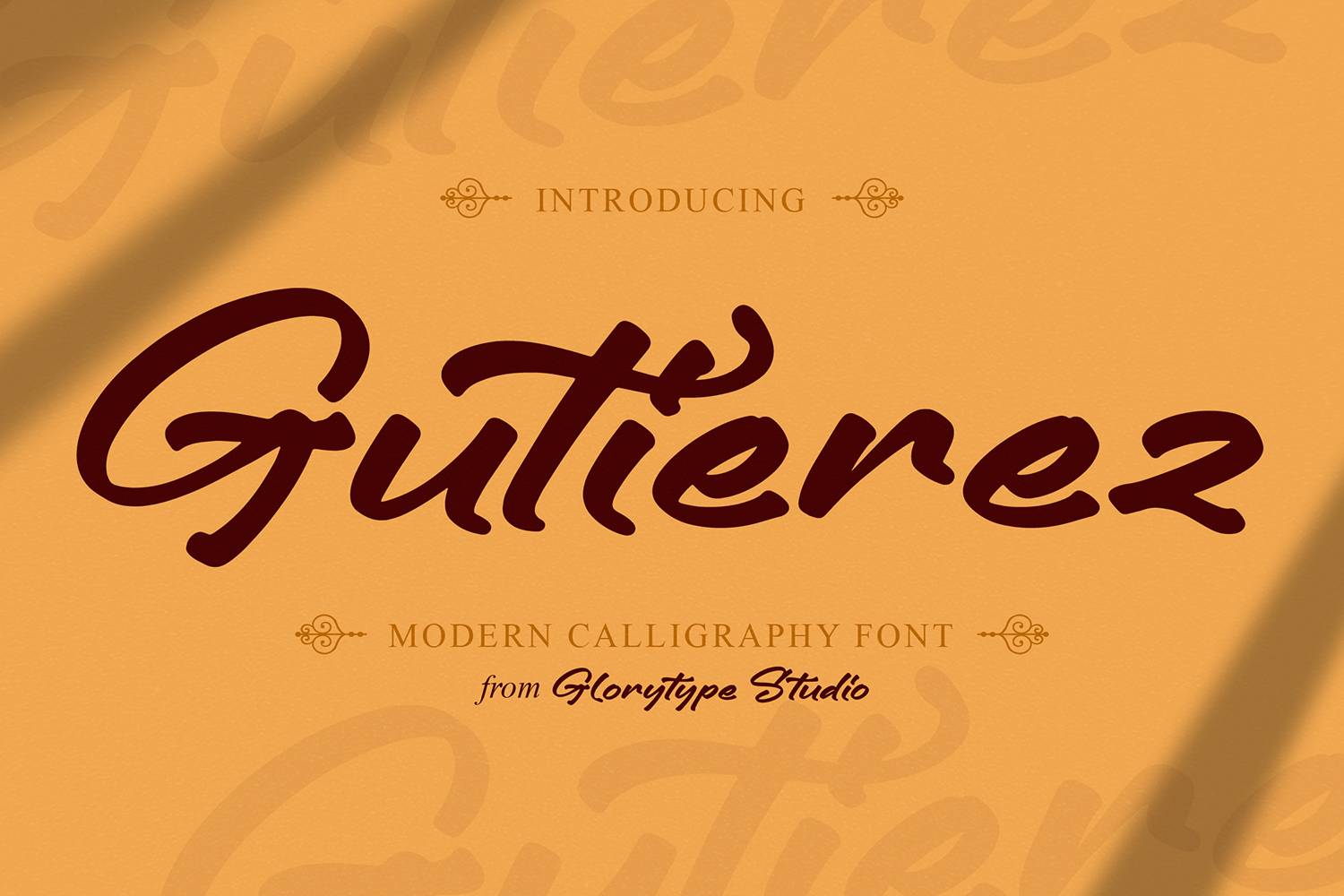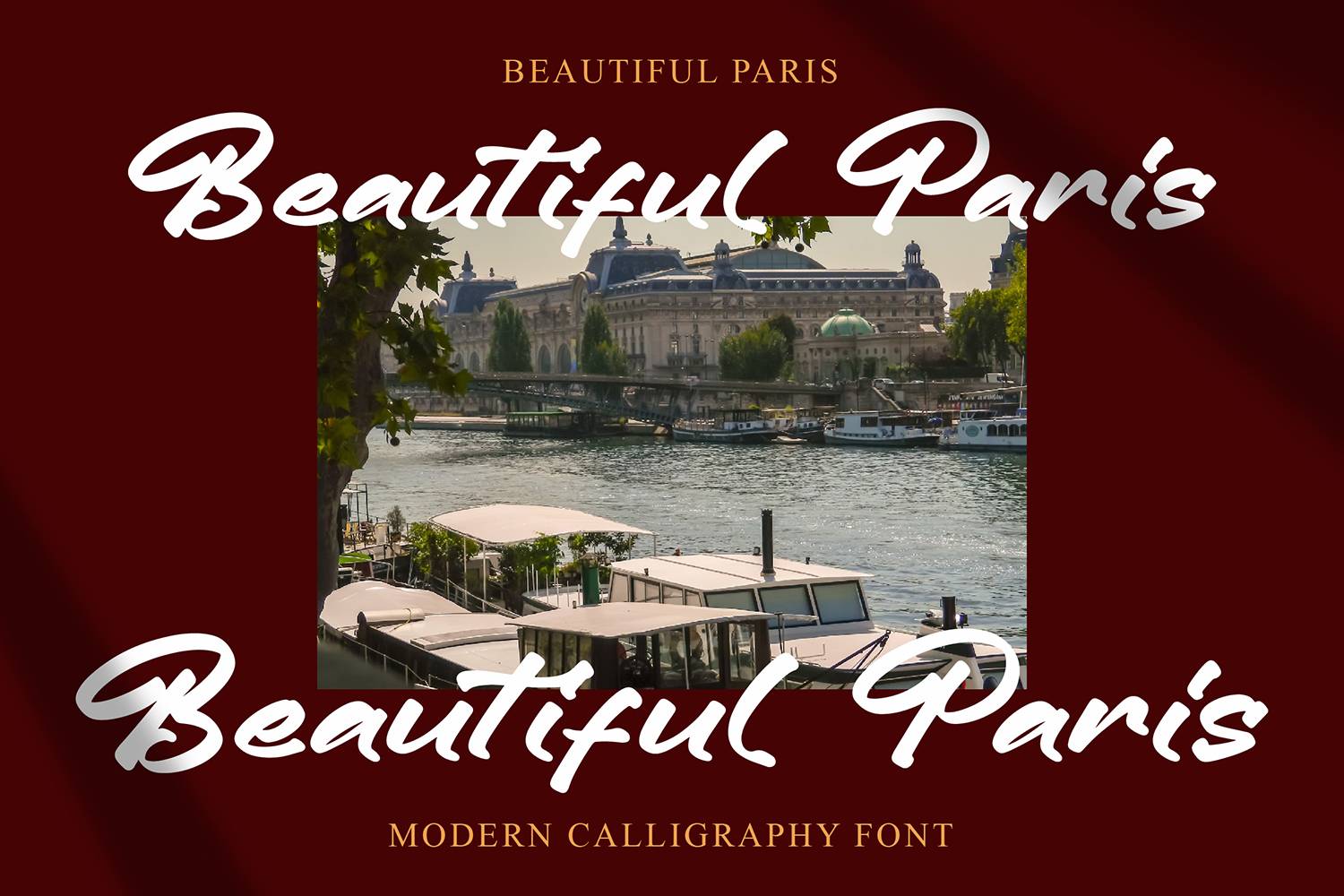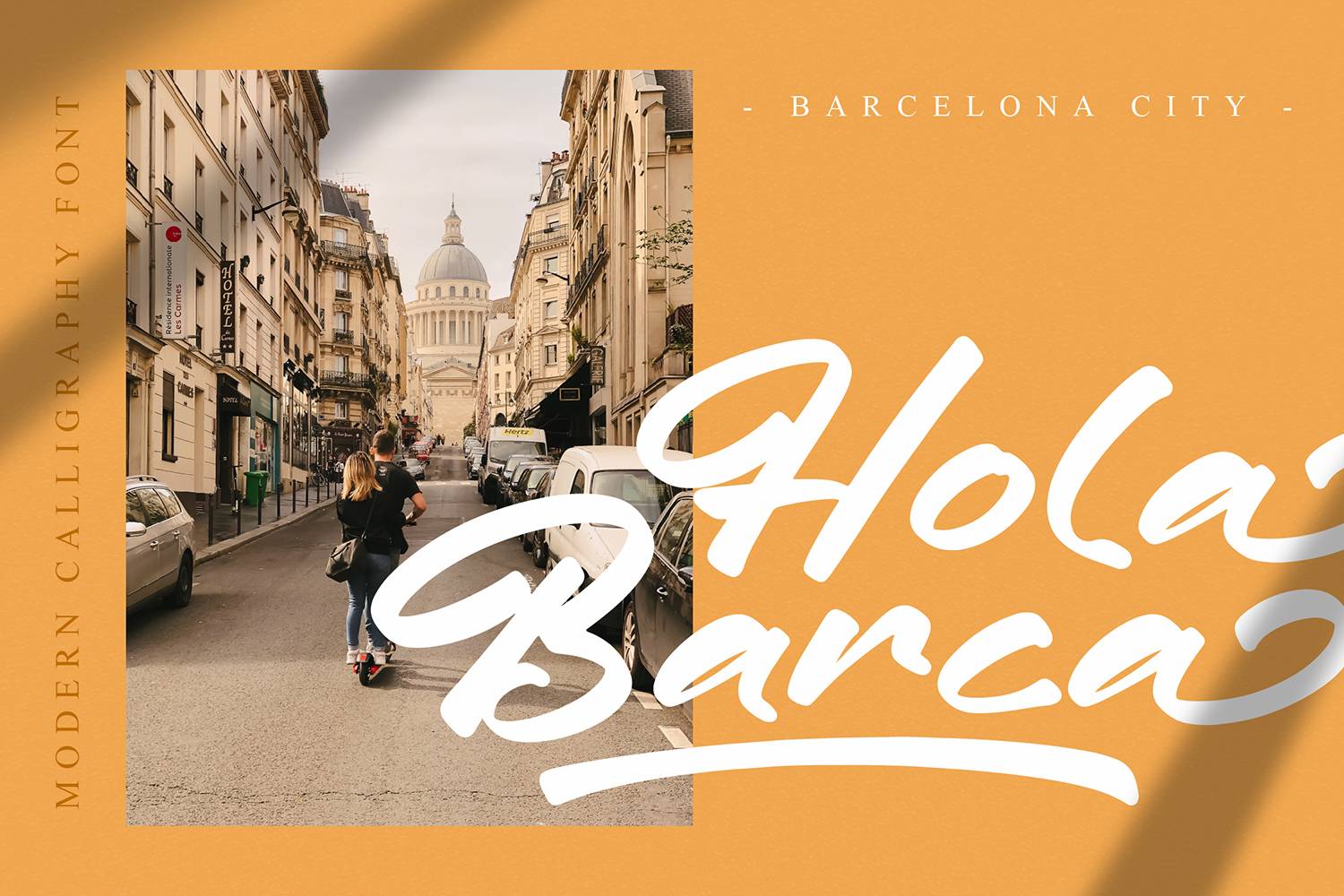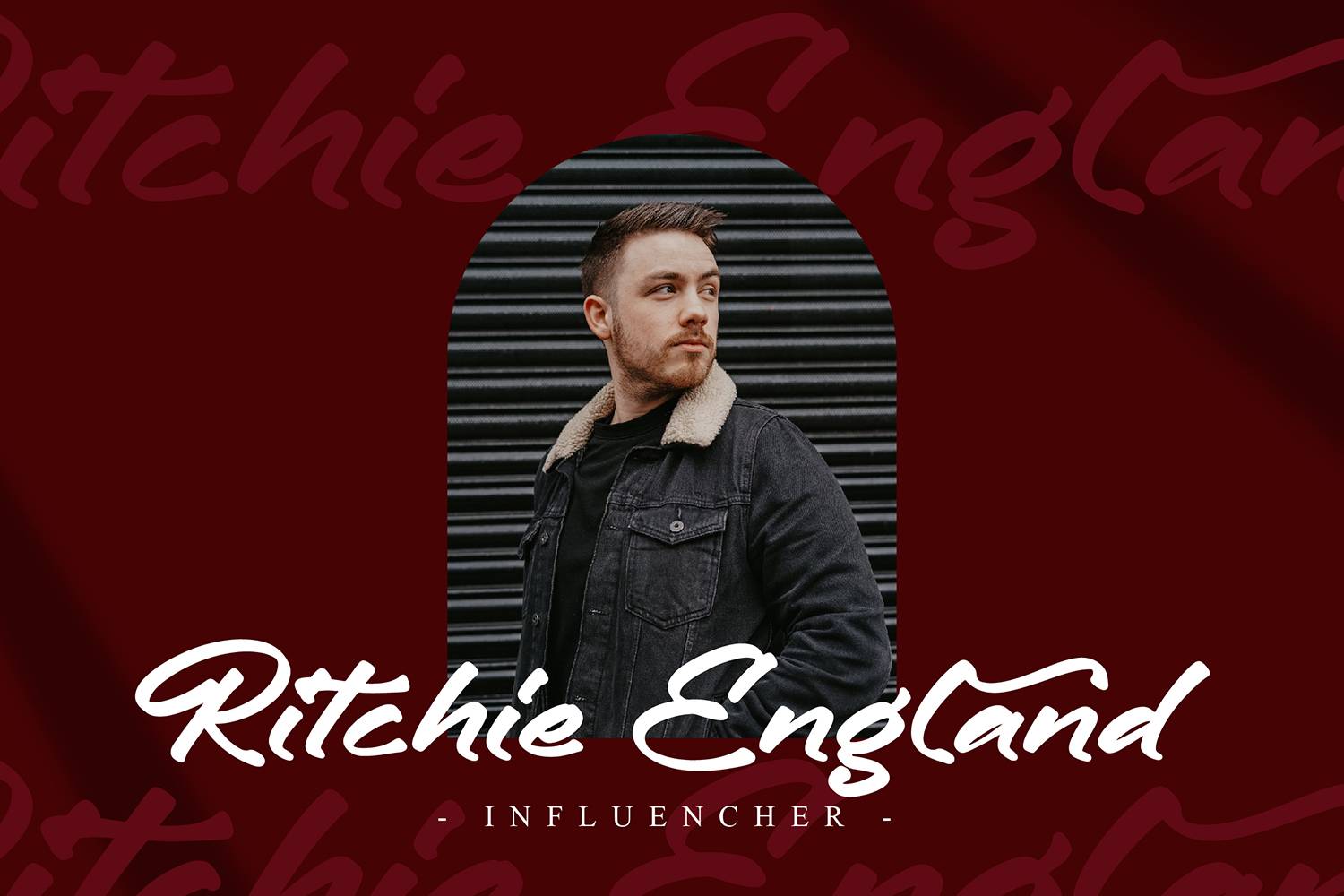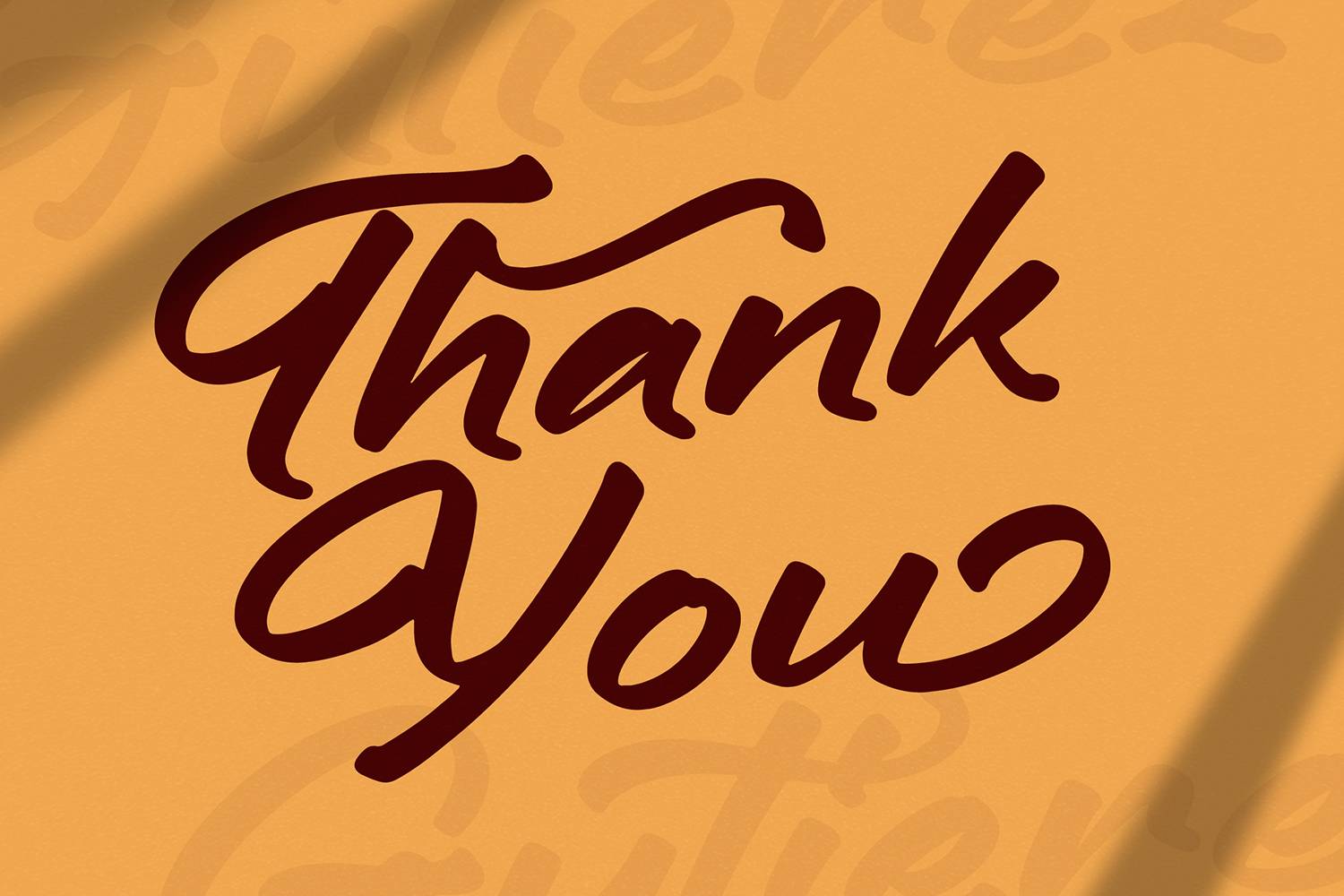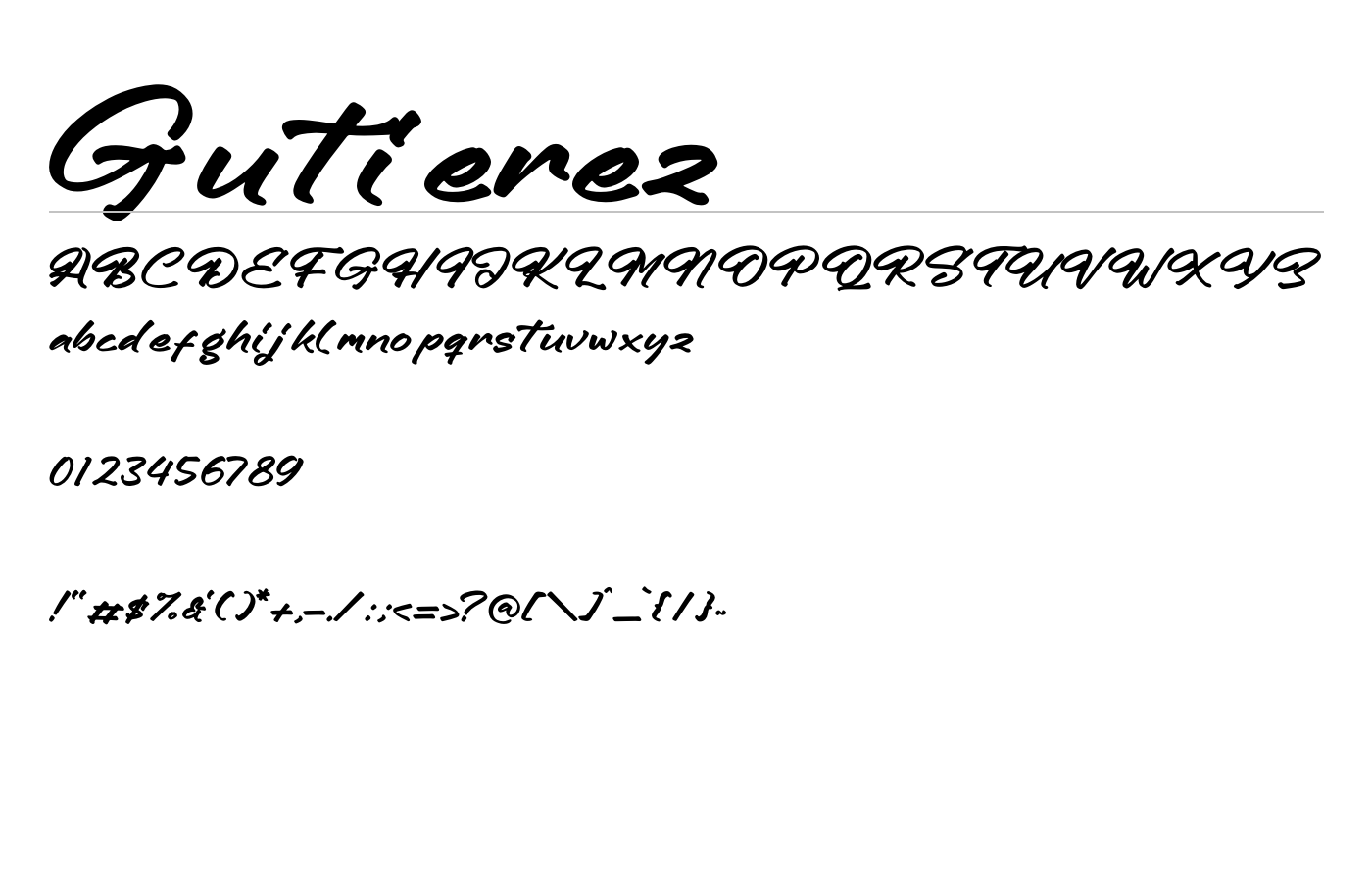
Gutierez is a lively script font with a casual yet elegant flair, featuring fluid, hand-drawn letterforms that combine smooth curves and sharp angles. Its moderate weight and slightly condensed style make it suitable for creative and expressive uses, while the natural, flowing strokes give it a warm, personal touch ideal for branding, invitations, and headlines. This font works well where a friendly, artistic vibe is desired, adding a stylish but approachable personality to any design.
Gutierez Font
About Gutierez Font